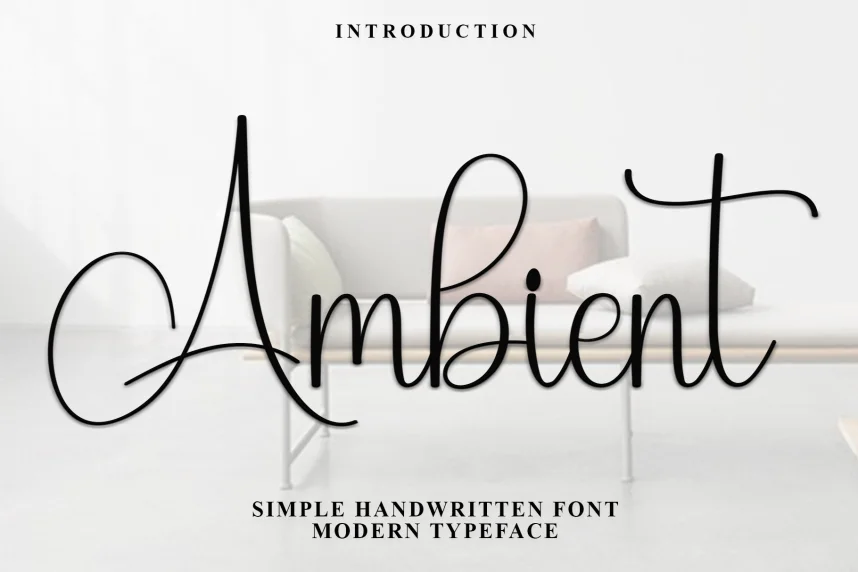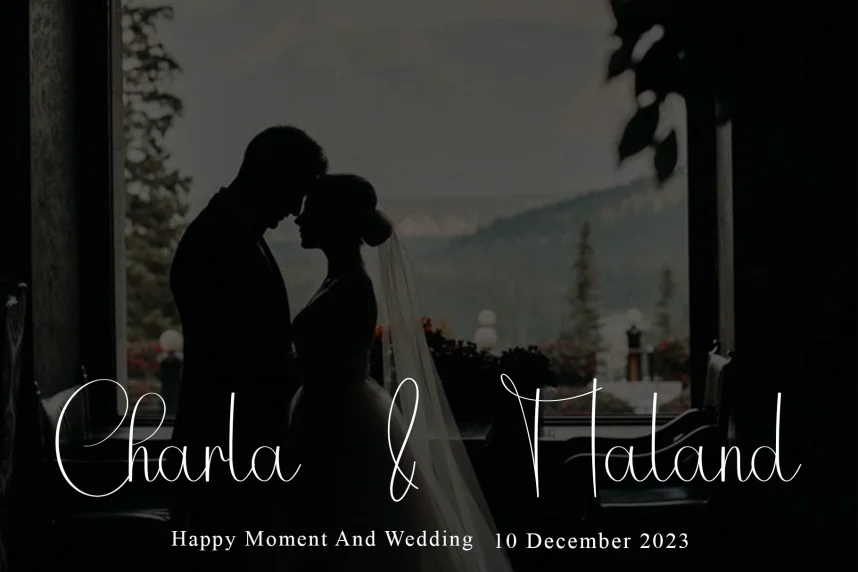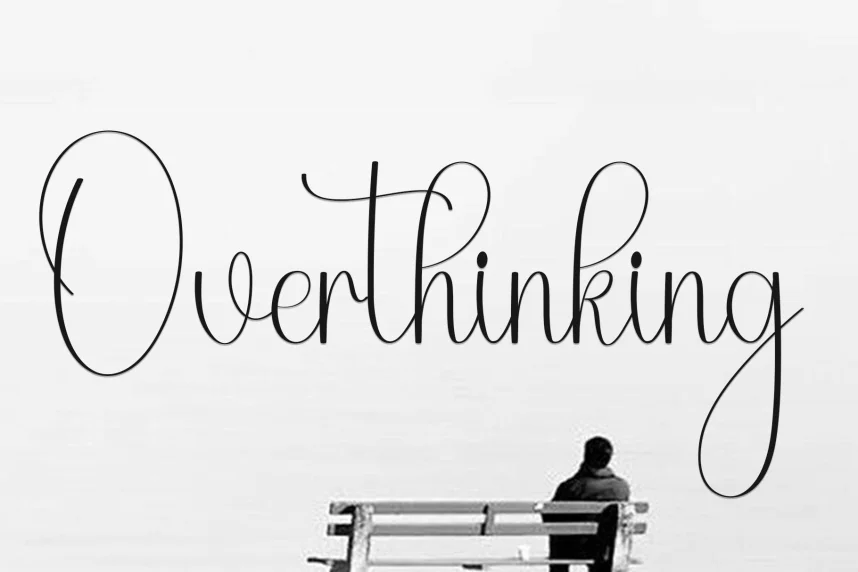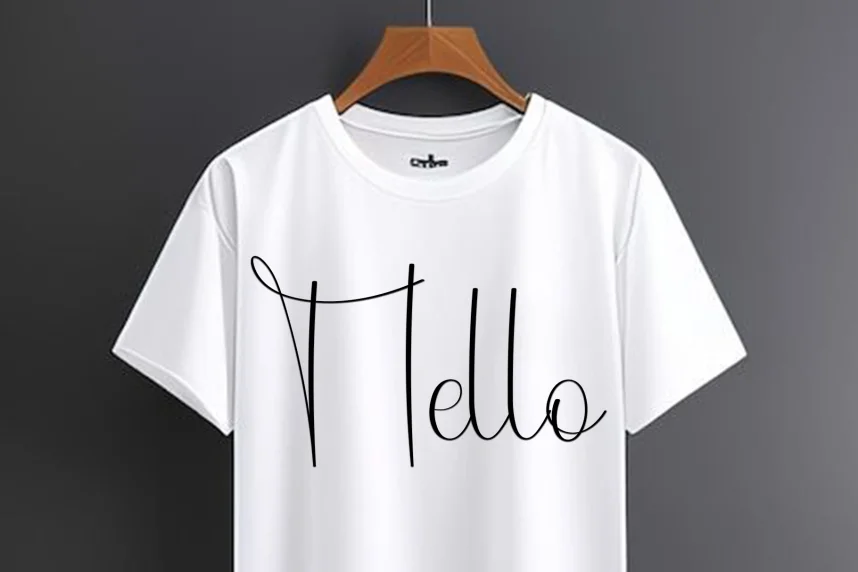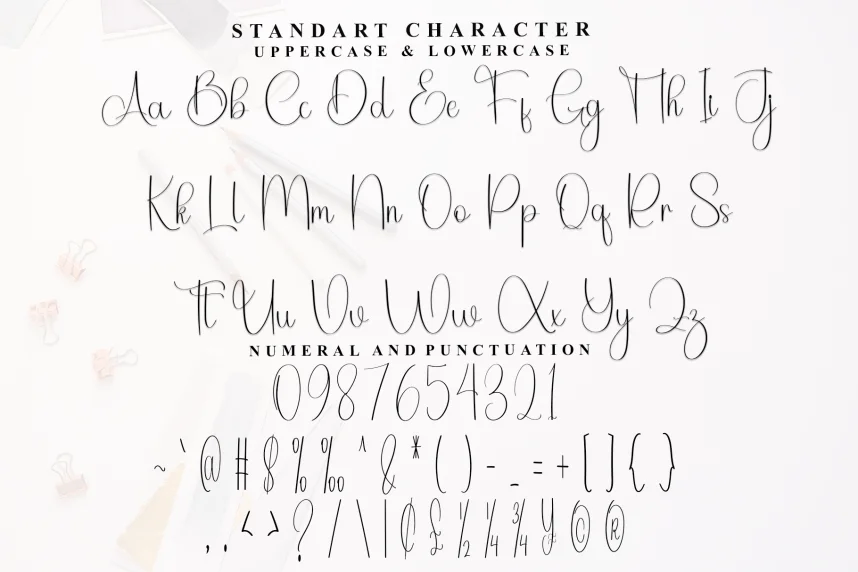
Ambient Style Handwritten Font addresses a frequent design challenge: adding personality to text while maintaining legibility. Designers often require fonts that feel personal and human yet remain easy to read in short-form content.
Ambient Style is a handwritten script font with fluid, organic strokes and subtle curve variations. The letterforms show casual irregularity without sacrificing clarity. Its moderate stroke contrast adds a natural, flowing character, making it ideal for informal branding or personalized content.